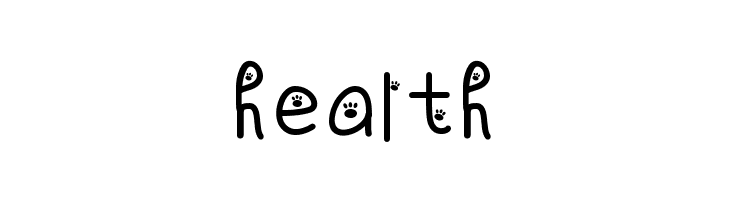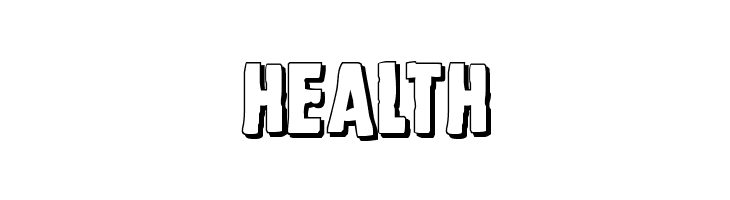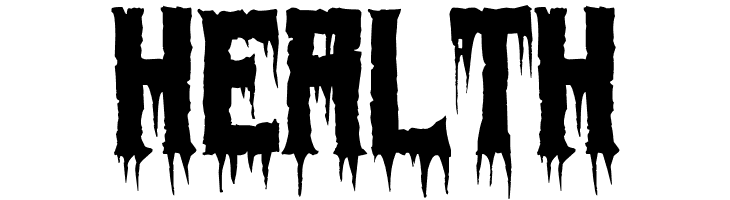
A jagged, horror-themed font with sharp, serrated edges.
( Fonts by Sheila Burns )
A playful font with paw print embellishments on each character.
A bold, dripping font with a spooky, wax-like appearance.
( Fonts by Jonathan S. Harris )
A bold, dripping font with a spooky, fluid design.
( Fonts by Galdino Otten )
A playful, bone-like decorative font with a hand-drawn aesthetic.
( Fonts by http://www.be.net/tanoveron )
A modern, geometric font with bold, striped patterns and angular forms.
A bold, shadowed font with a playful, spooky vibe.
( Fonts by Sinister Fonts )
A horror-themed, dripping font with bold, jagged characters.